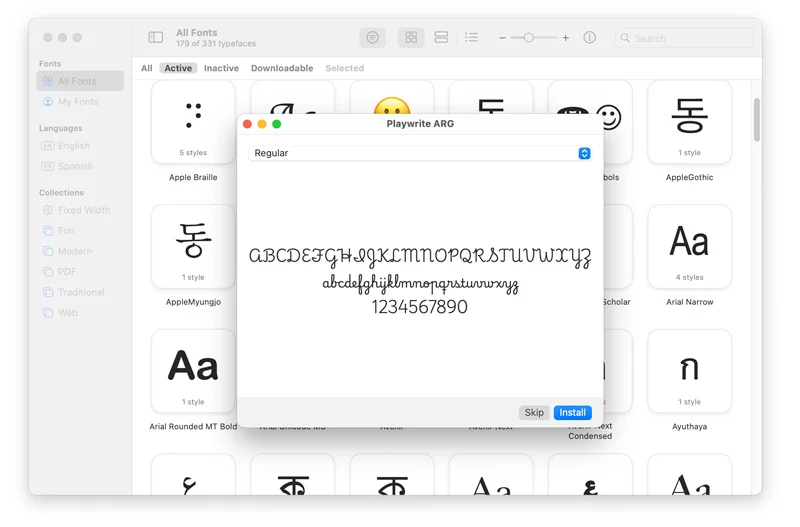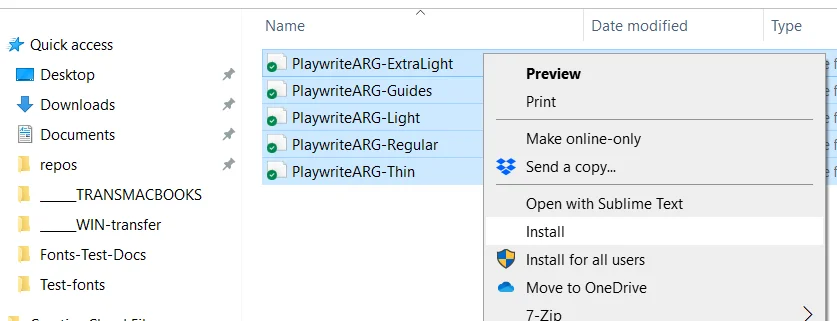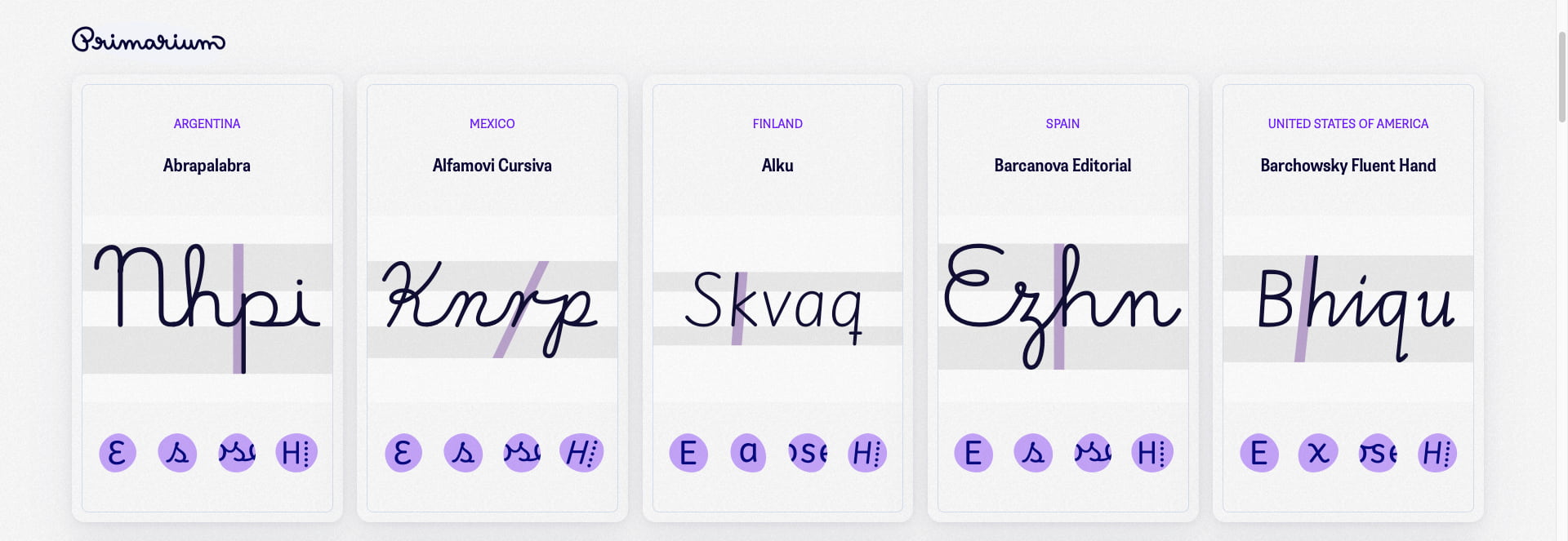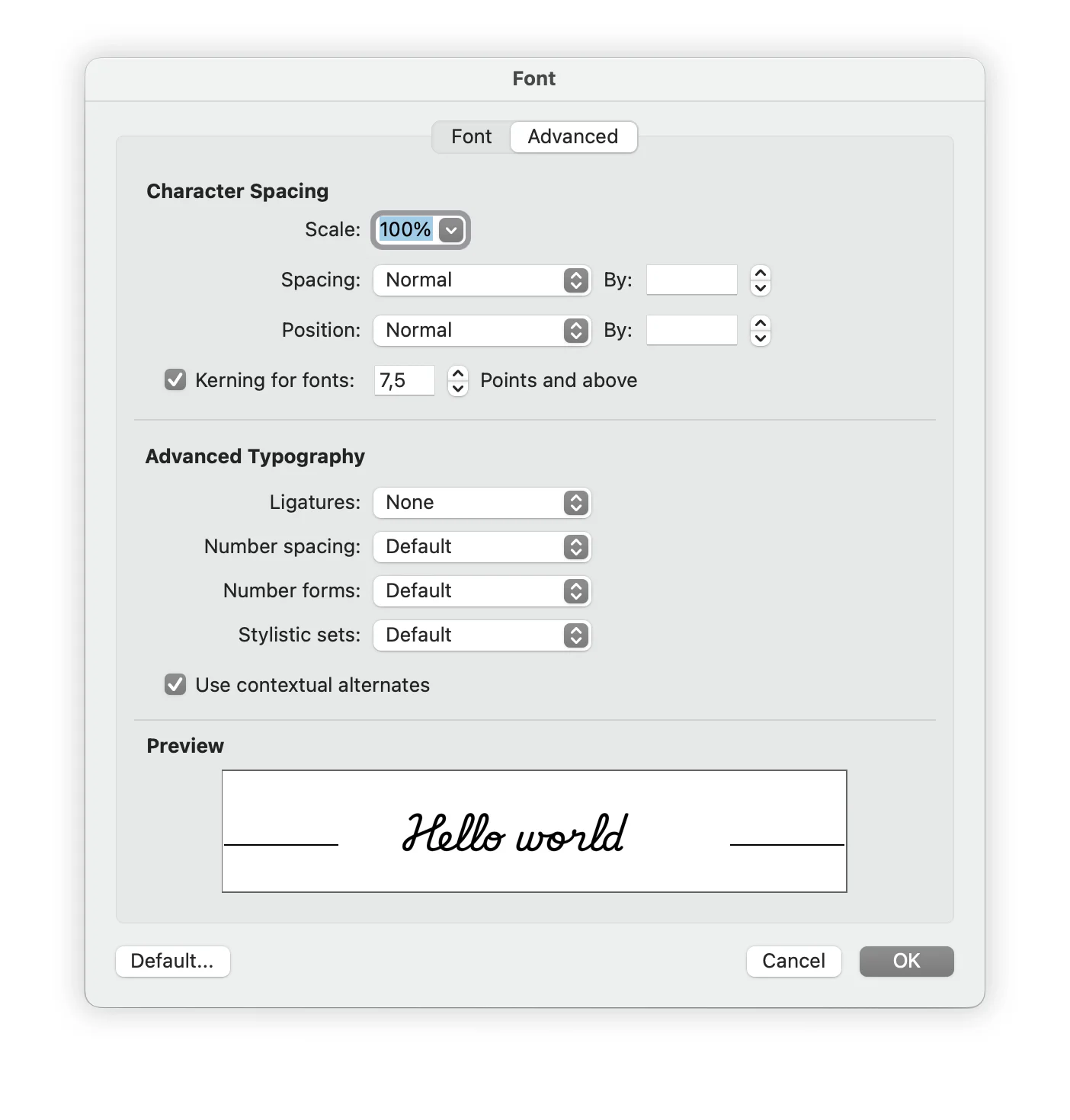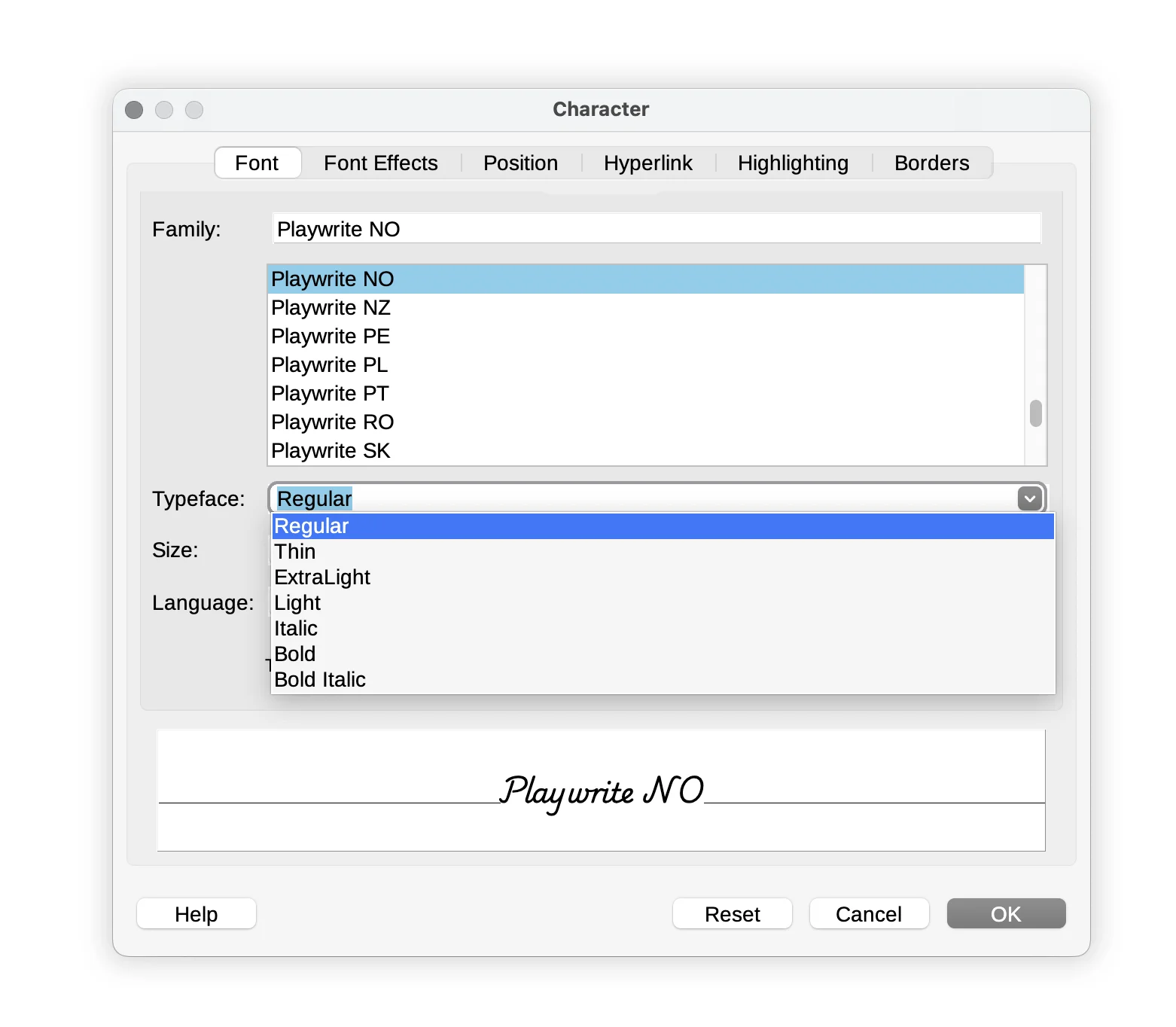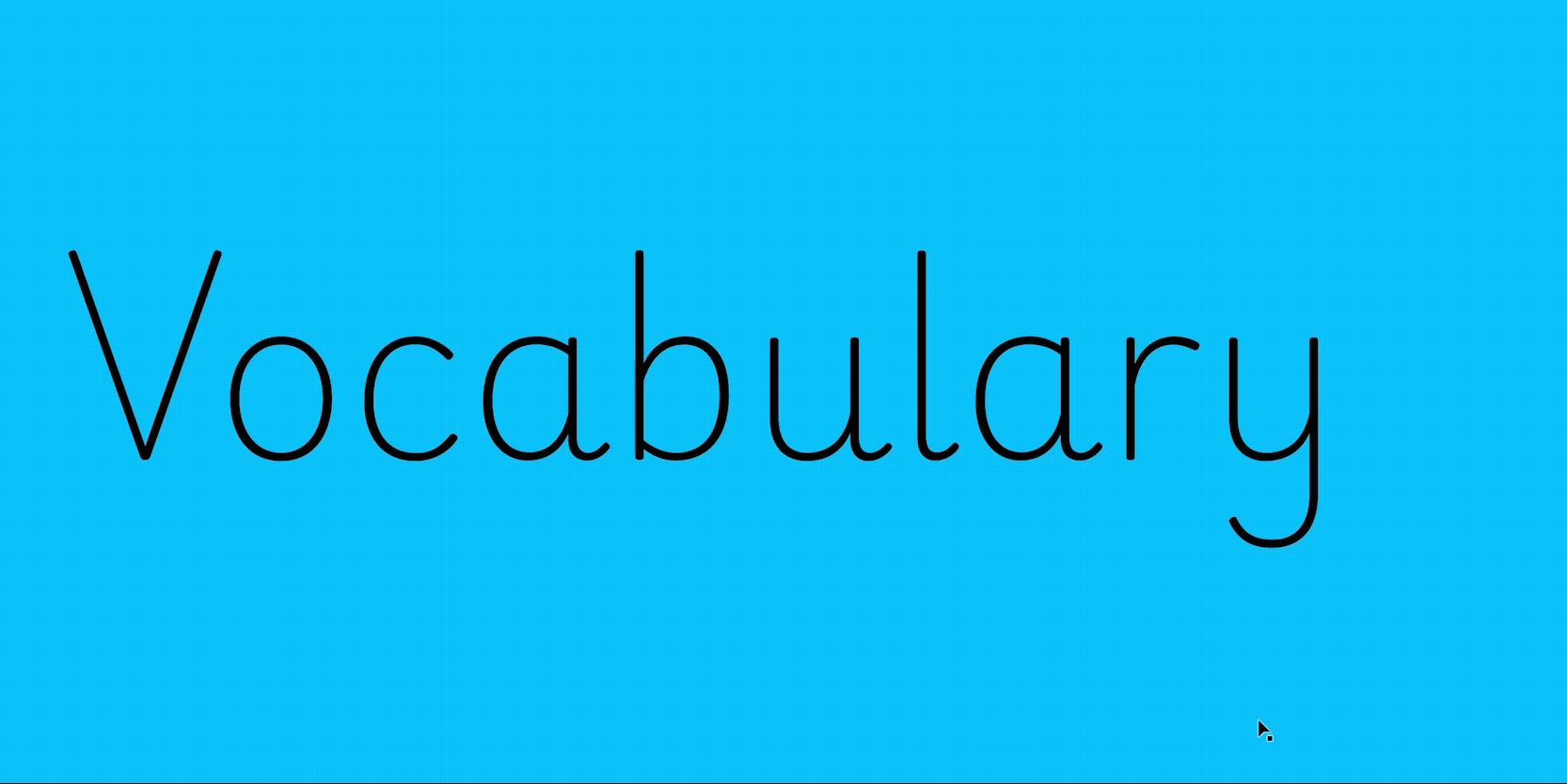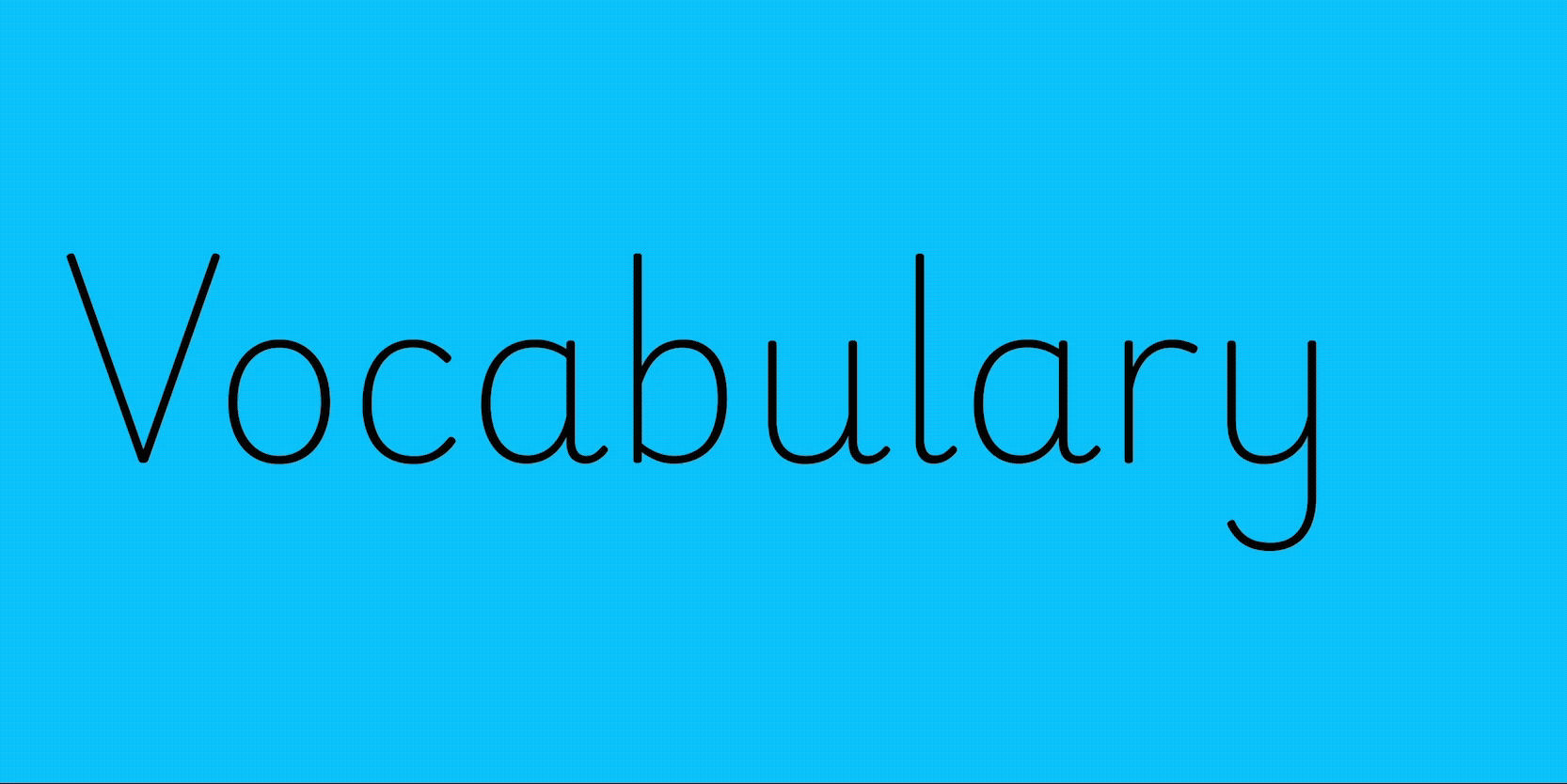
In 2024 we released the free Playwrite font family, based on our Primarium research. Here we present a guide for installing and using it.
Rather than just a typeface alone, Playwrite is a typeface engine that allows the creation of primary school fonts. The free font families are the practical result of TypeTogether’s ongoing three-year research project, Primarium, which studies handwriting instruction methodologies in Latin-based languages around the world. Our findings informed the design of the family with regards to the calligraphic models currently in use, their development, and rationale.
Each region has letter shapes specific to their preferences and familiar to their people, so we incorporated those shapes into each font. Playwrite includes static and variable fonts, support for over 150 Latin-based languages, Vietnamese, and stylistic sets with a combination of eight variations for each letter. Users will find letters ranging from a precursive model to mirrored loops, different degrees of slant, plus idiosyncratic glyph variants, totalling 51 fonts representing the current teaching models in 40 countries.
This article unravels the technical side of Playwrite, from installing the individual models to taking advantage of the font’s OpenType features.
While our intention is to publish a typeface that can be modified by changing its axis (thanks to variable font technology which allows users to build any of the country models), the fonts available right now contain one model per family. So, if the desire is to set some text in Spanish from Spain, download Playwrite ES. If the user wants to create a copy sheet with English text from India, use Playwrite IN, and so on.
The Playwrite font family uses complex OpenType features to generate connected writing, and some common applications require these features to be manually activated.
Playwrite can also be downloaded and used as a variable font that contains all the options across the spectrum of each axis in a small file size, and the designer or user can fine-tune it to their needs.
The variable font comes with four axes: weight (from thin to regular), slant (controls how slanted it is), vertical extensions (controls the ascender and descender length), and speed (controls the speed and shape of the curves). These four axes allow users to create handwriting by country model, and also to create the version of Playwrite — on the fly — that may be needed for a specific job, regardless of model.